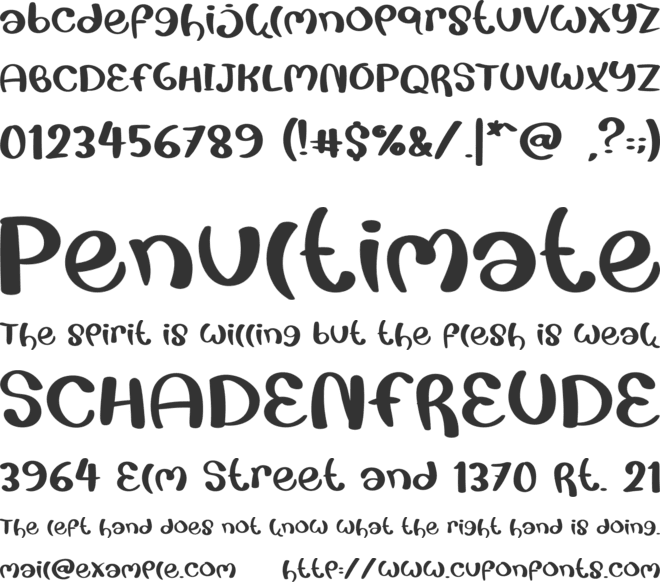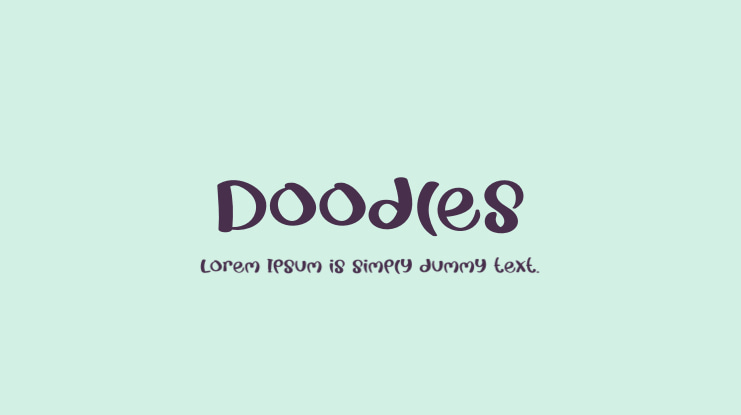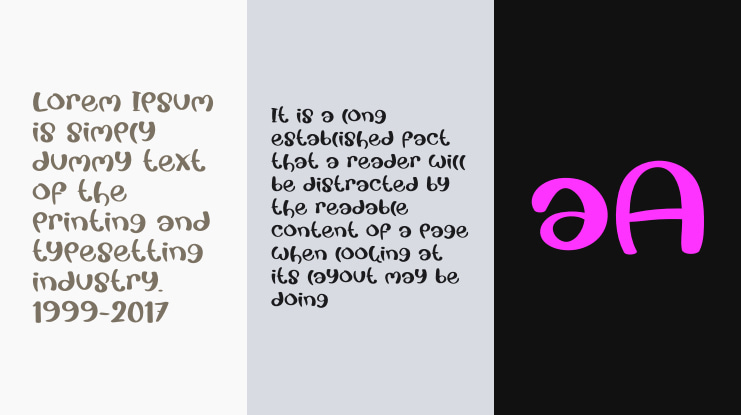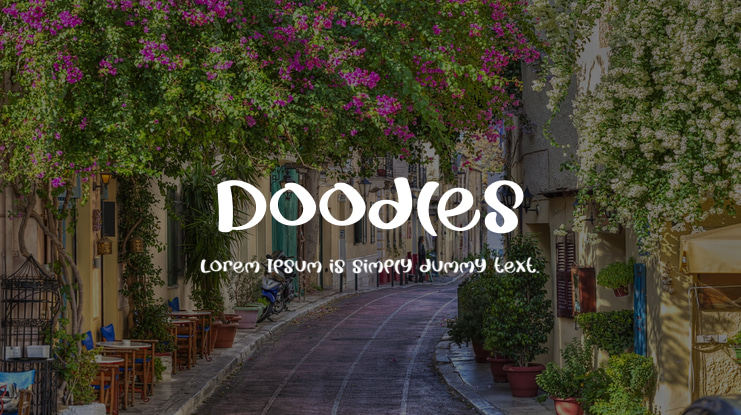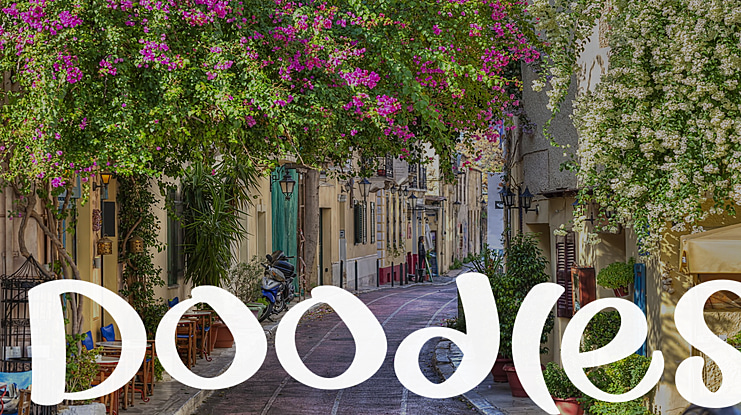
Doodles Font
Doodles is a cool and cute-looking display font. Add it to each of your party invitations, apparel, or pretty much any design that requires a touch of youth and joy.